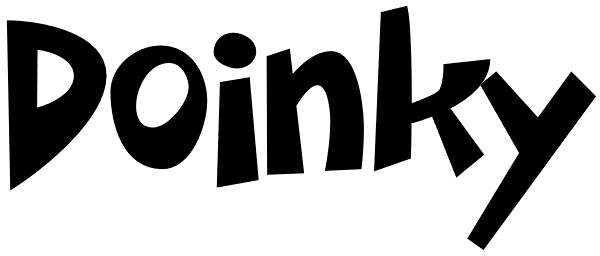
Doinky
Hey kids! What’s wacky, bouncy, and jam-packed with excitement and thrills? It’s DOINKY! That’s right, you'll have bucket-loads of fun with this new OpenType font from Sideshow. Amaze your friends with DOINKY ALTERNATES! Yes, DOINKY will make you...